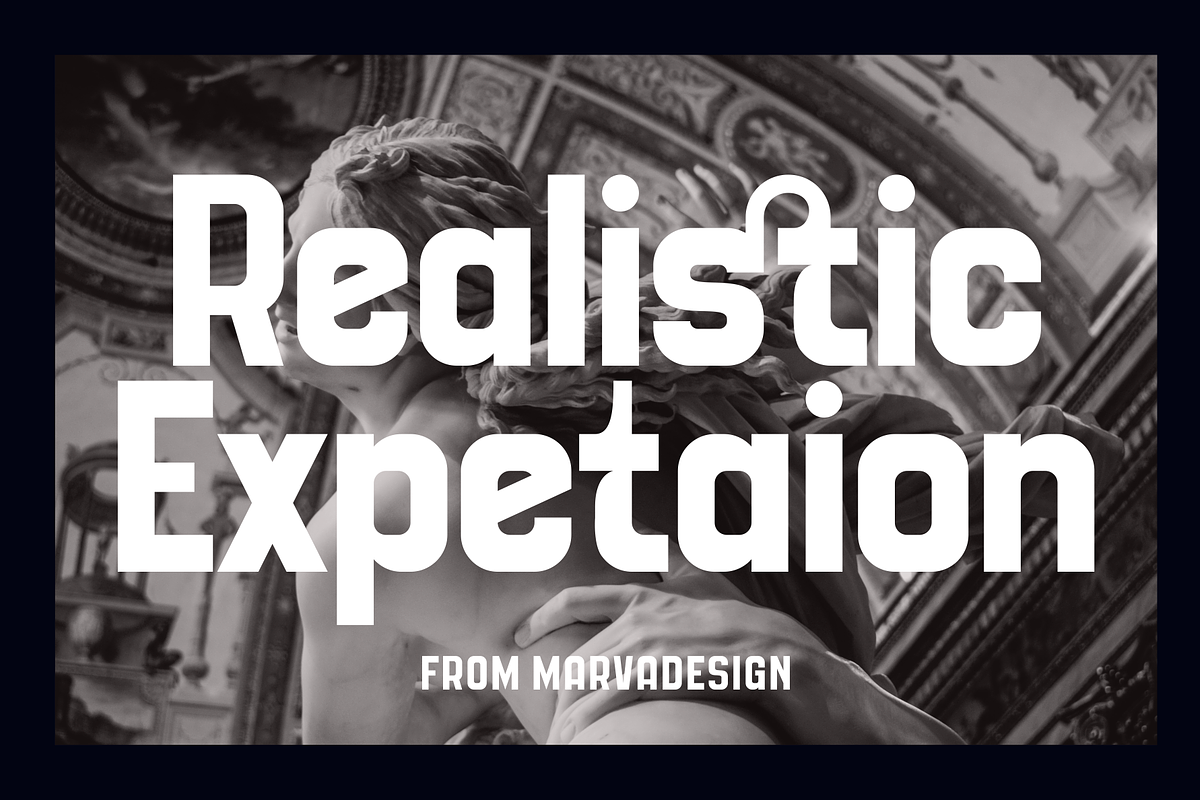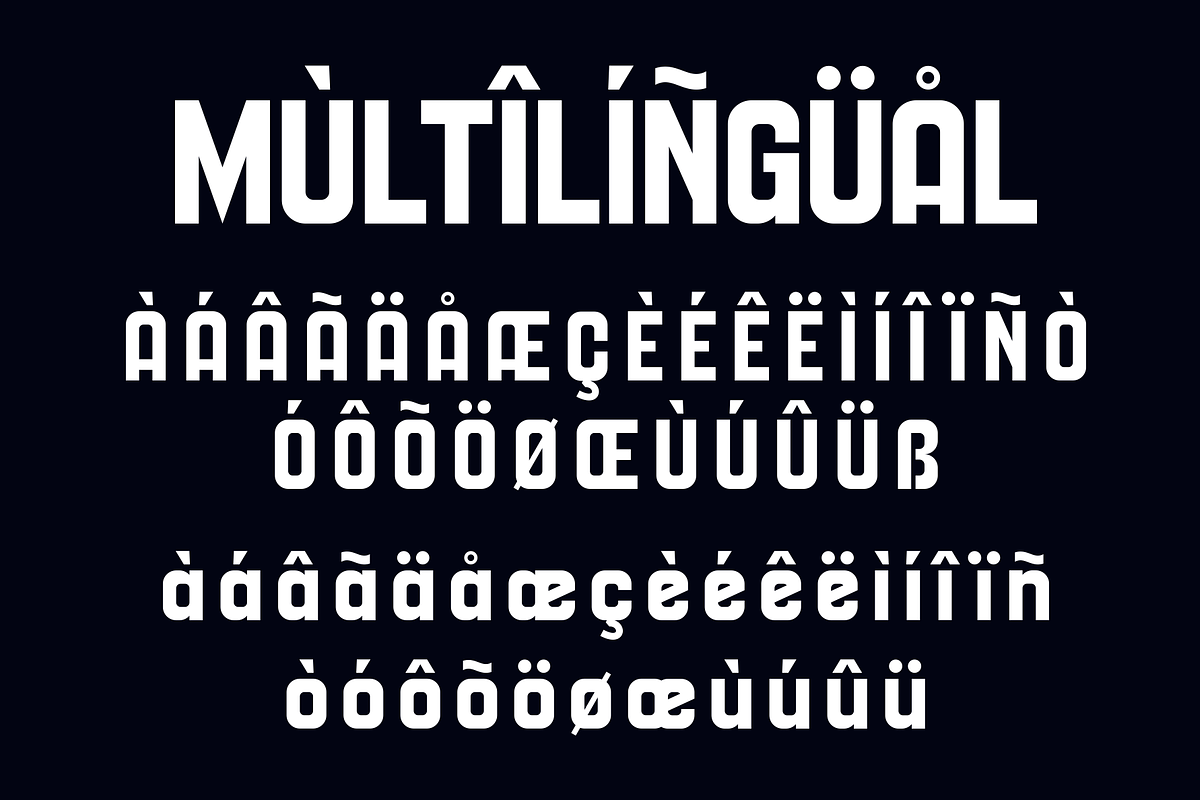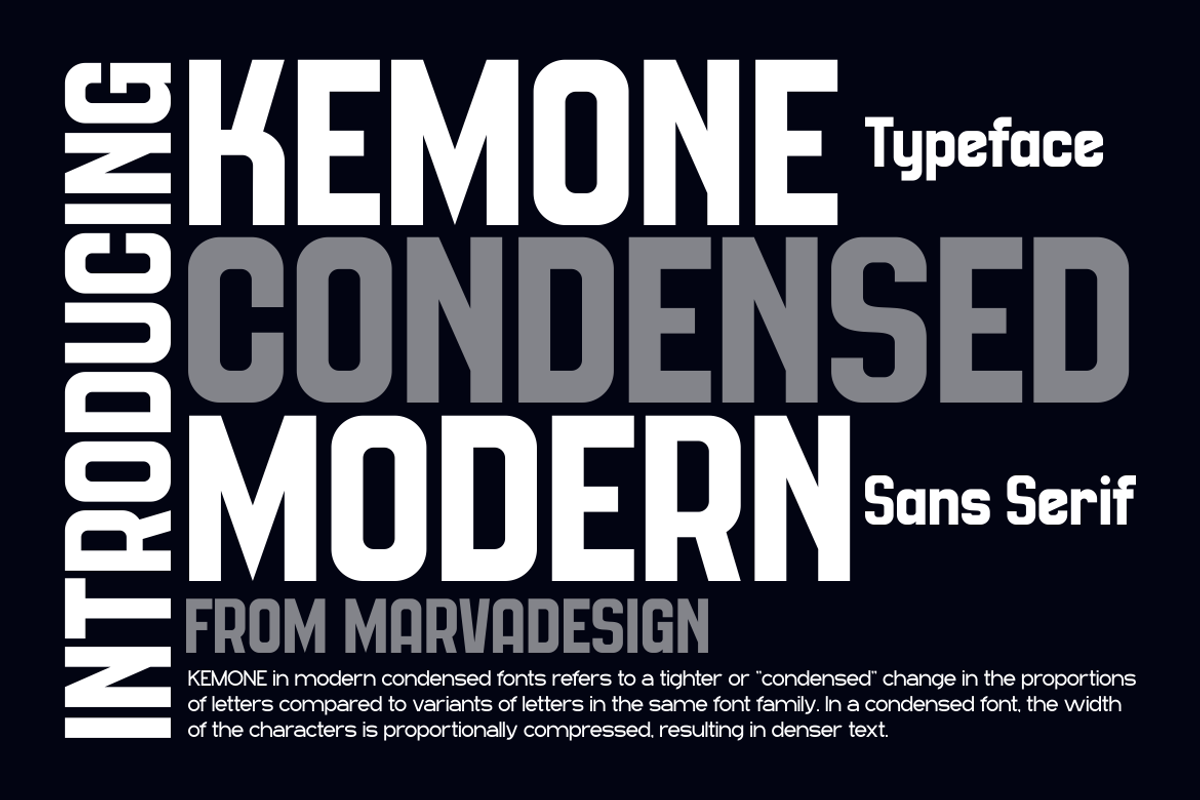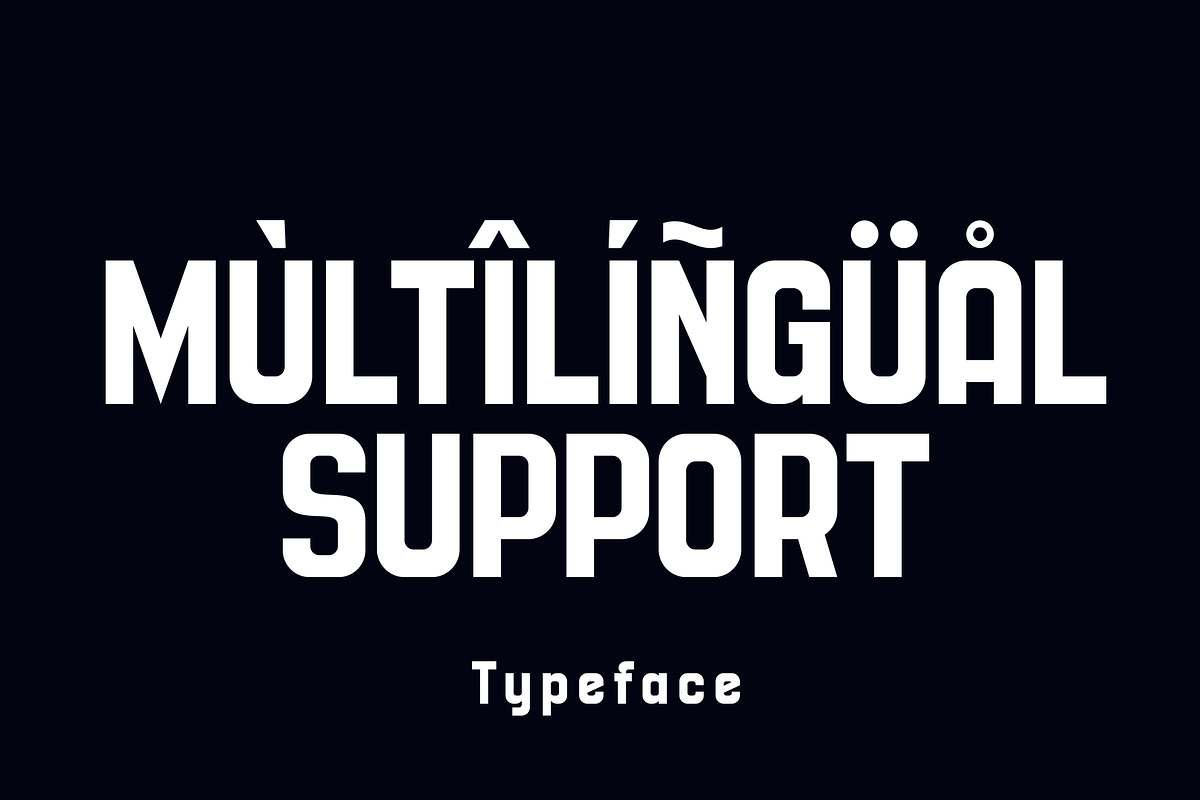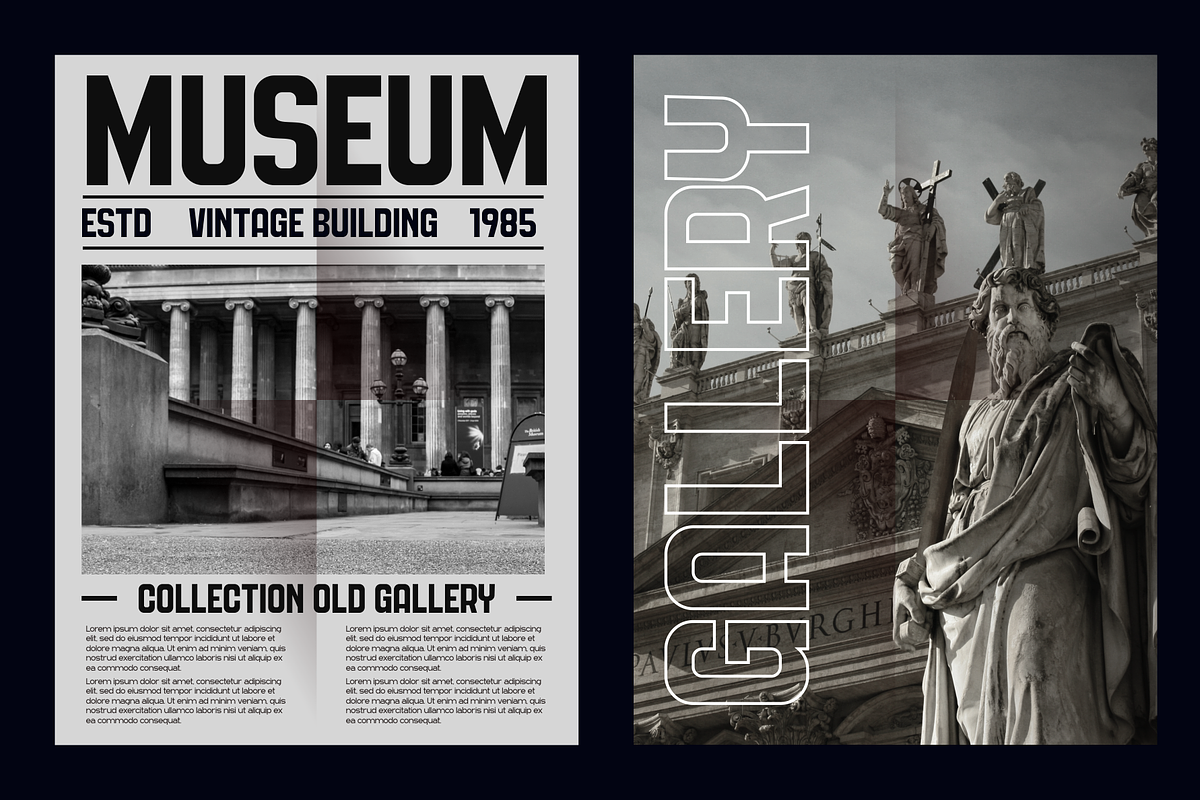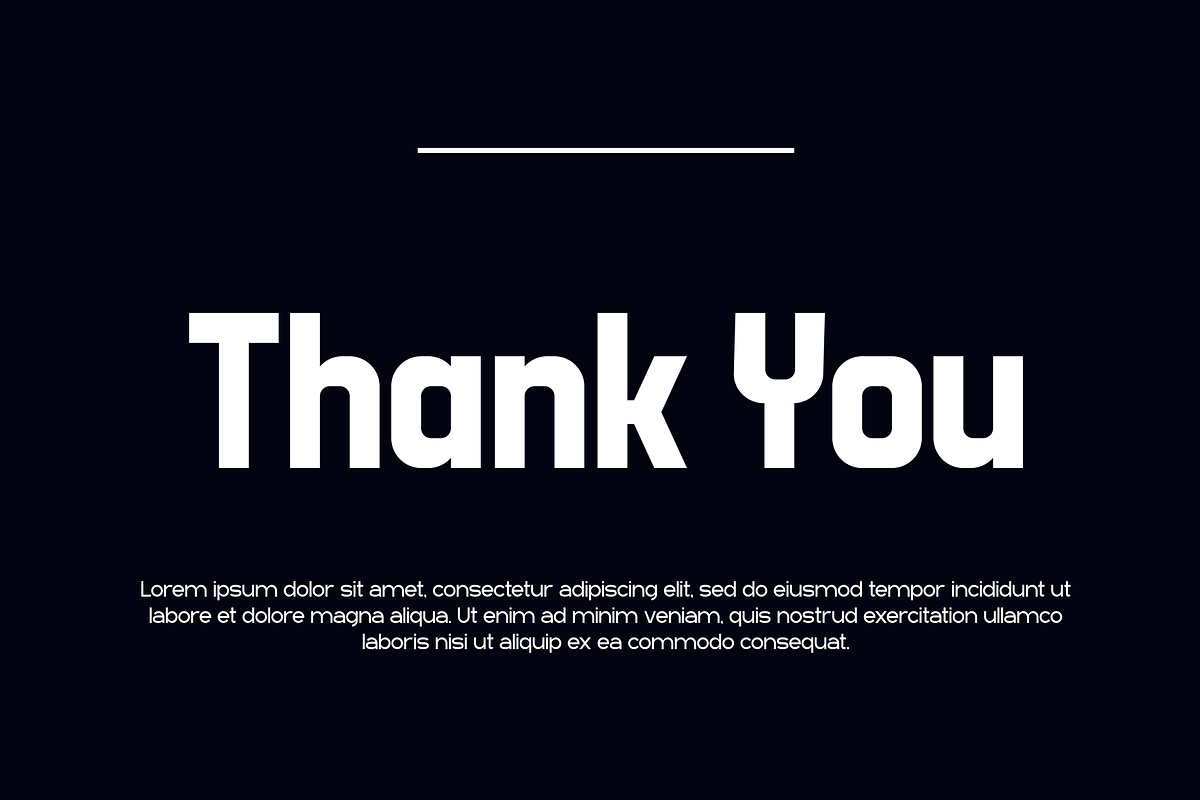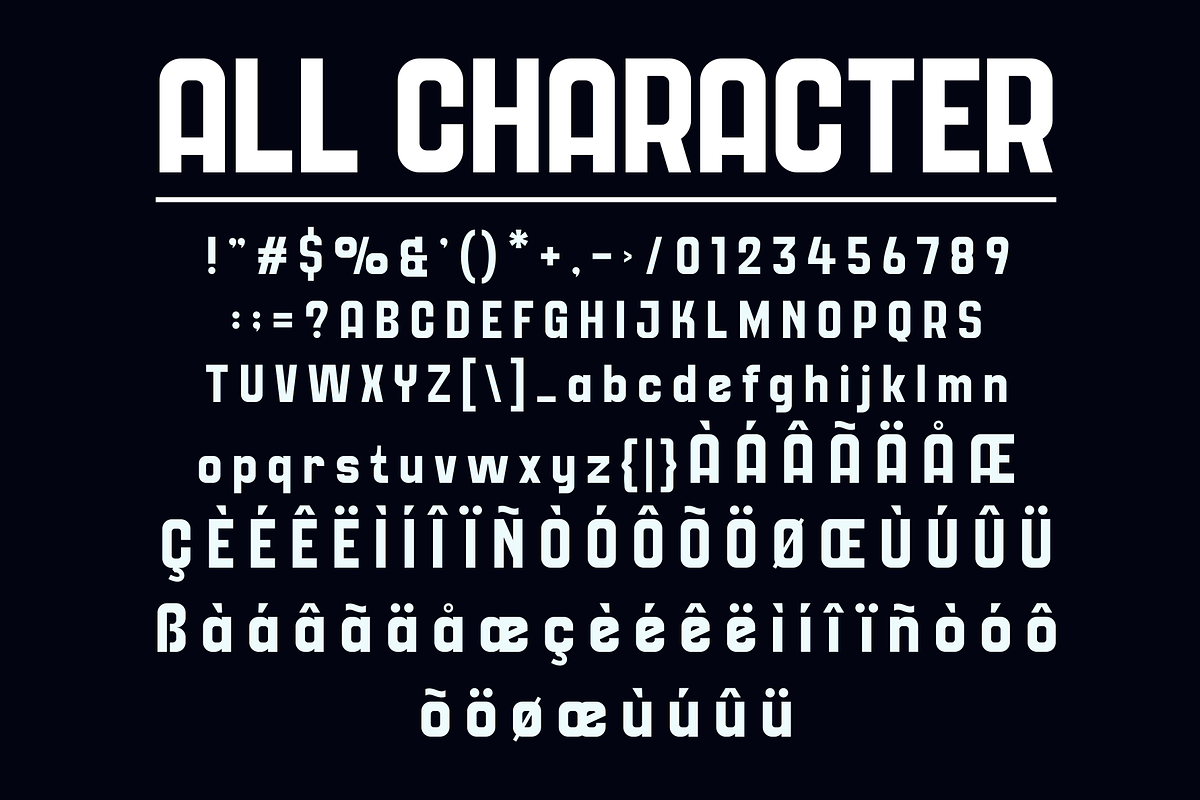
Kemone - A Modern Condensed Sans
Introducing our new product Kemone Font - Modern Font Kemone Font*** - Modern Font is a bold and authentic display font. The font is suitable for any branding project like logo, Template Design, Product and many more. outstanding in a wide range of contexts.
- Alternate & Ligature